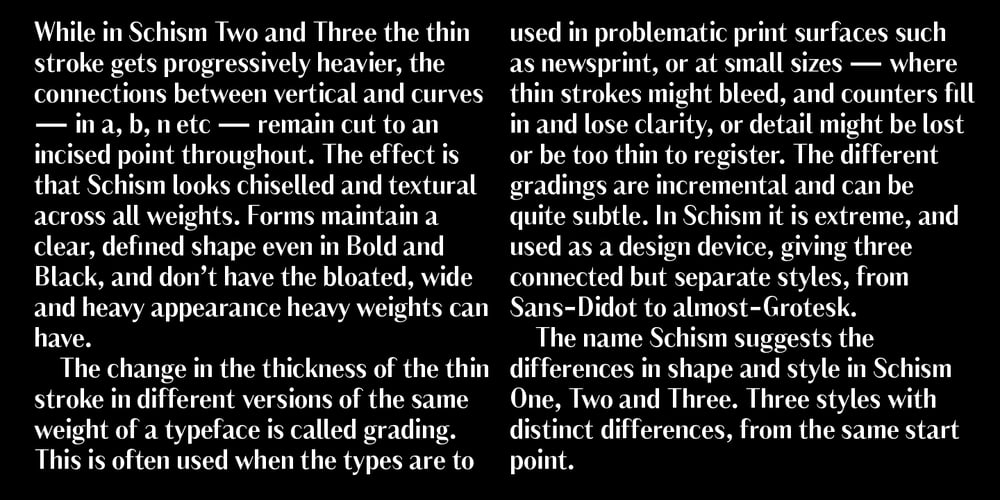
Schism One
Schism One font
Schism One Font Family was designed by Gareth Hague and published by Alias. Schism One contains 8 styles and family package options. Schism is a modulated sans-serif, originally developed from our Alias Didot typeface, as a serif-less version of the same design. It was expanded to three sub-families, with the thin stroke getting progressively heavier from Schism One to Schism Three. The different versions explore how this change in contrast between thick and thin strokes changes the character of the letterforms. The shape is maintained, but the emphasis shifts from rounded to angular, elegant to incised. Schism One has high contrast, and the same weight of thin stroke from Light to Black. Letter endings are at horizontal or vertical, giving a pinched, constricted shape for characters such as a, c, e and s. The h, m, n and u have a sharp connection between curve and vertical, and are high shouldered, giving a slightly square shape. The r and y have a thick stress at their horizontal endings, which makes them impactful and striking at bolder weights. Though derived from an elegant, classic form, Schism feels austere rather than flowery. It doesn’t have the flourishes of other modulated sans typefaces, its aesthetic more a kind of graphic-tinged utility. While in Schism Two and Three the thin stroke gets progressively heavier, the connections between vertical and curves — in a, b, n etc — remain cut to an incised point throughout. The effect is that Schism looks chiselled and textural across all weights. Forms maintain a clear, defined shape even in Bold and Black, and don’t have the bloated, wide and heavy appearance heavy weights can have. The change in the thickness of the thin stroke in different versions of the same weight of a typeface is called grading. This is often used when the types are to used in problematic print surfaces such as newsprint, or at small sizes — where thin strokes might bleed, and counters fill in and lose clarity, or detail might be lost or be too thin to register. The different gradings are incremental and can be quite subtle. In Schism it is extreme, and used as a design device, giving three connected but separate styles, from Sans-Didot to almost-Grotesk. The name Schism suggests the differences in shape and style in Schism One, Two and Three. Three styles with distinct differences, from the same start point.